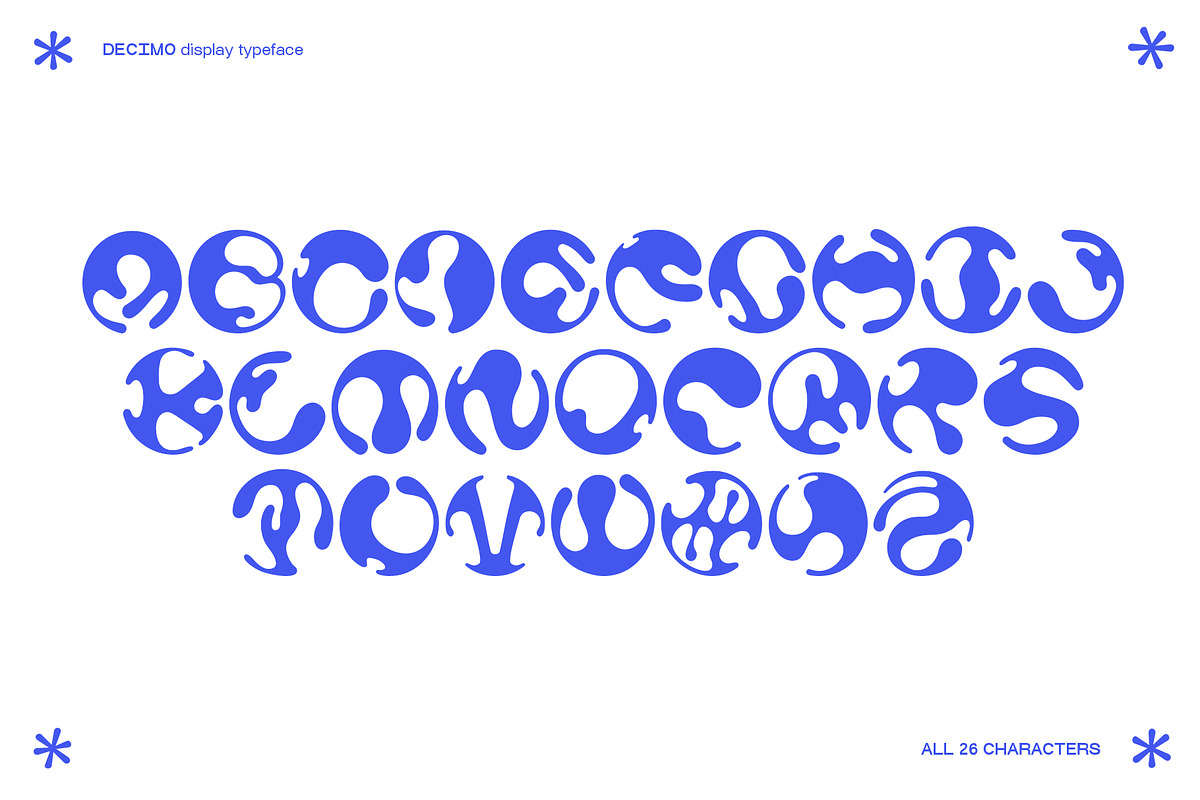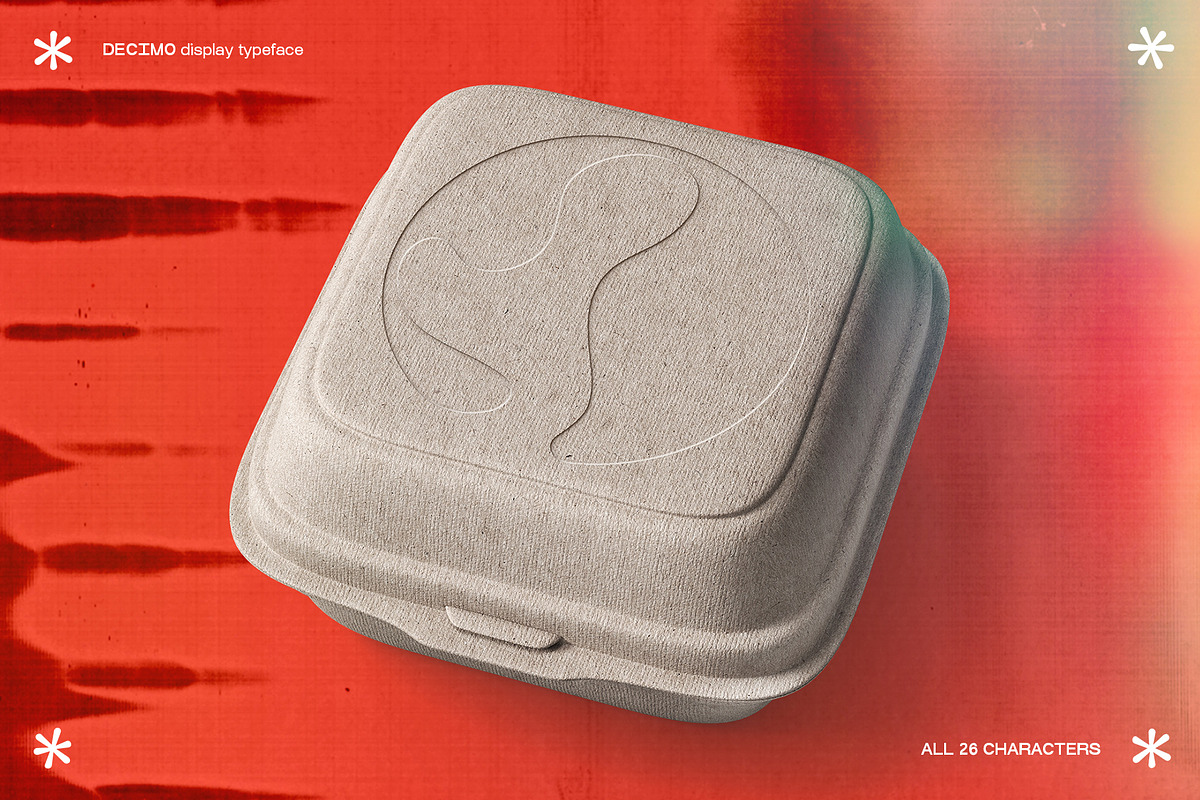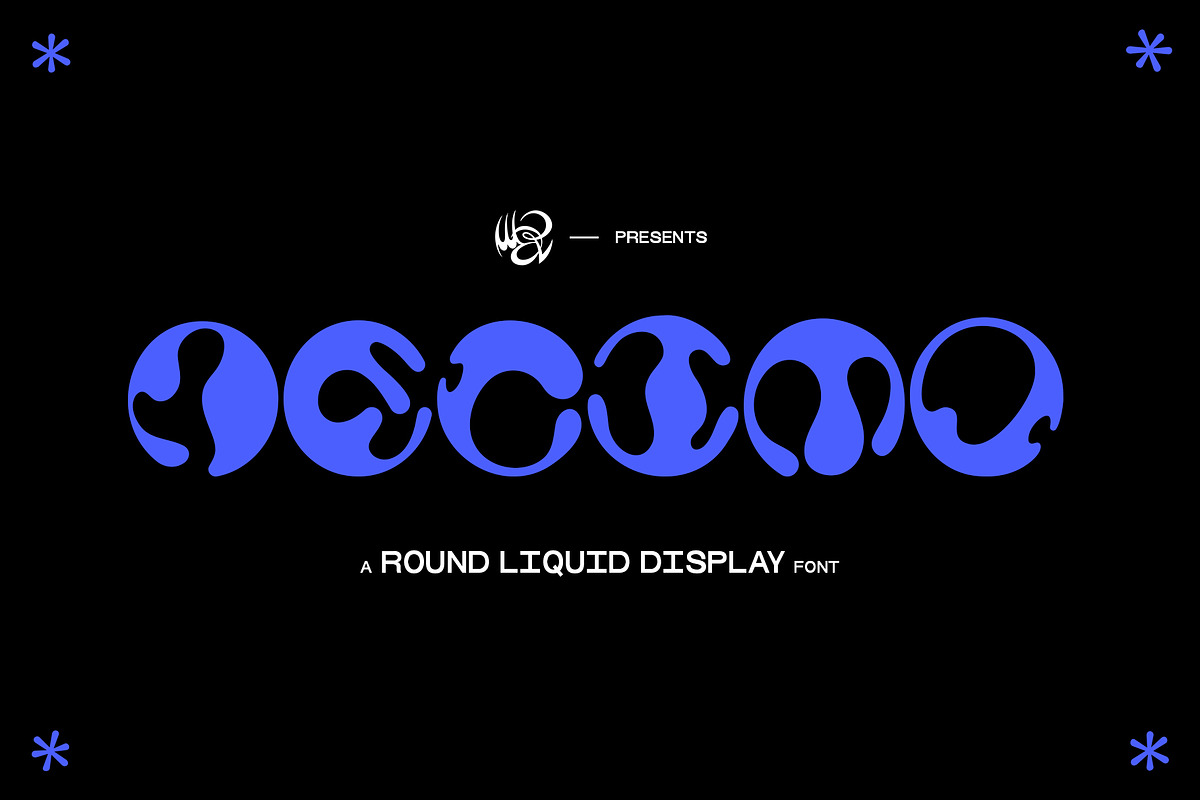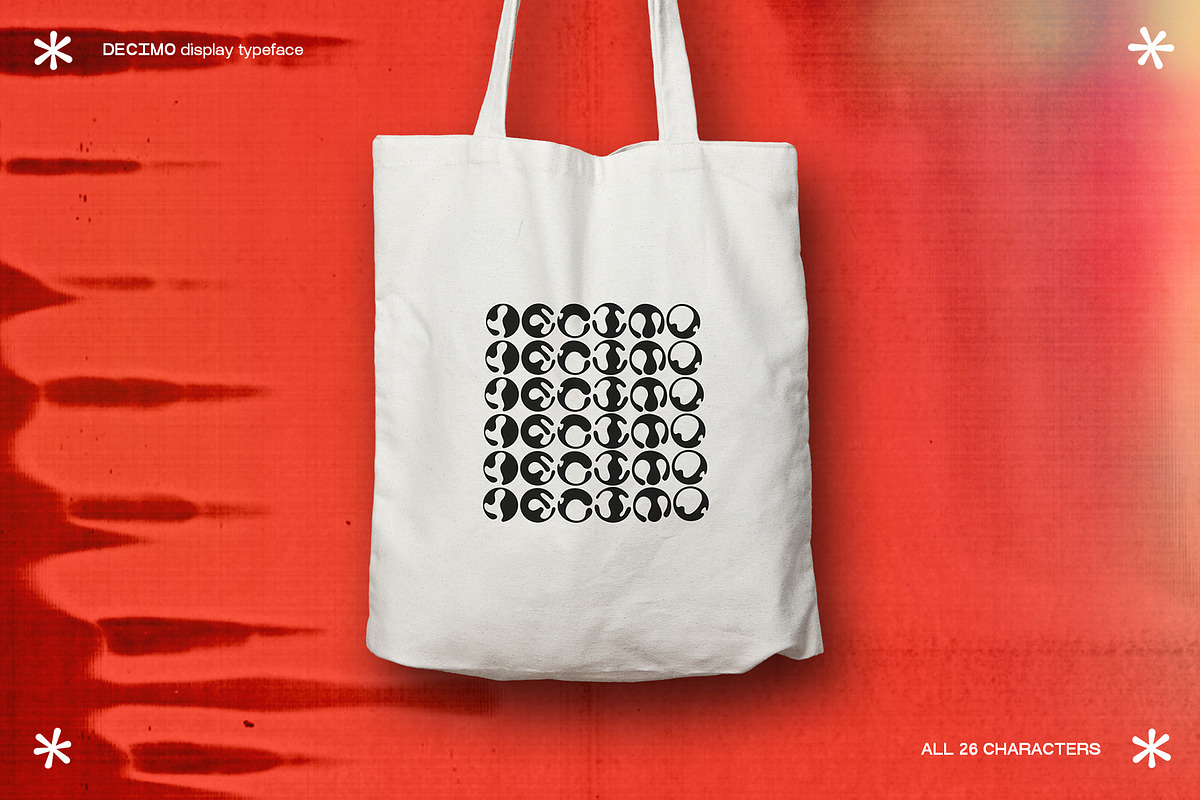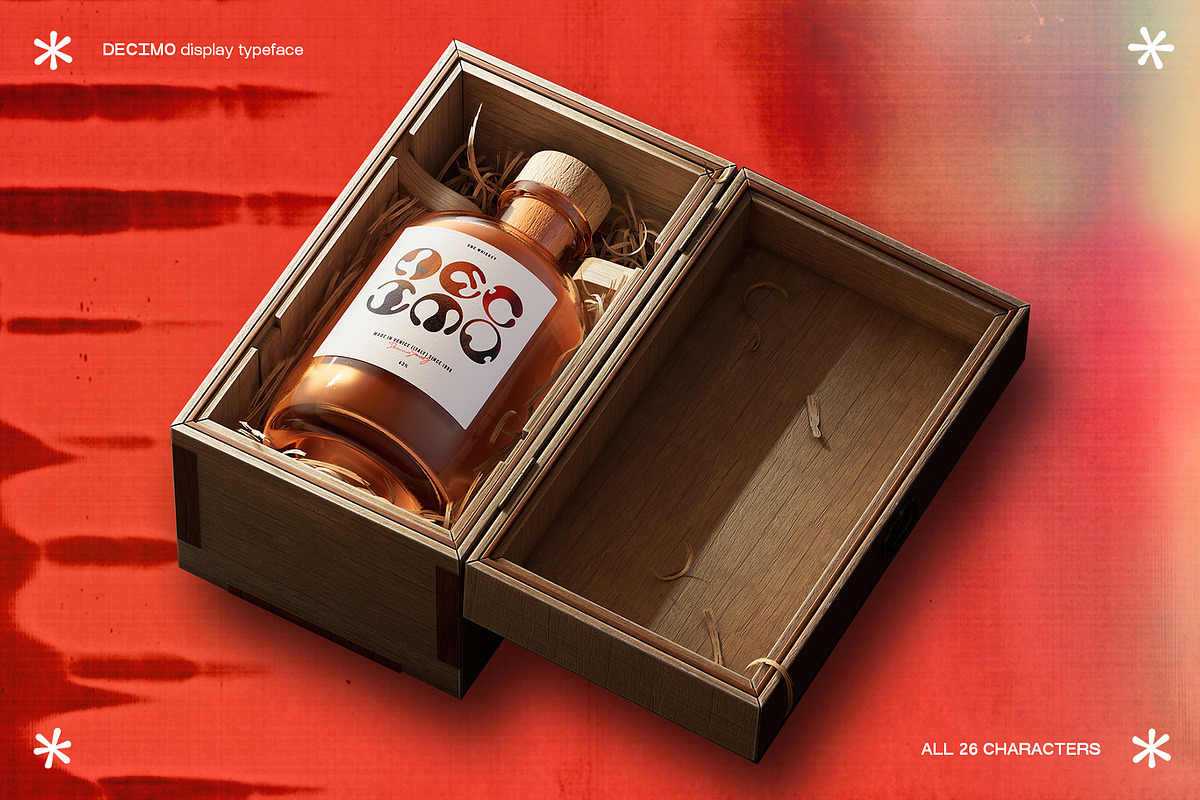
DECIMO Round Liquid Display Typeface
DECIMO is a new round liquid typeface, its uniqueness is the monospaced design, in which every letter has been designed into a circle, it is full of all 26 characters and it can be used to create big headlines, headers, logos, posters, designs for merch, it's not meant to be easy to read, this font is pushing with the style to be unique and to be very specific for very specific choises. You will find it interesting and the monospaced characteristic is useful when you create something that has forms. Have fun with it!